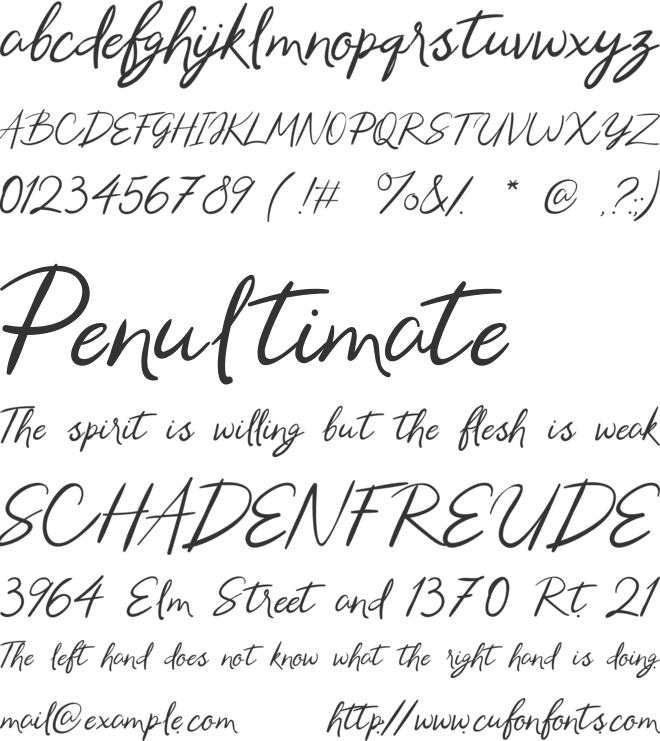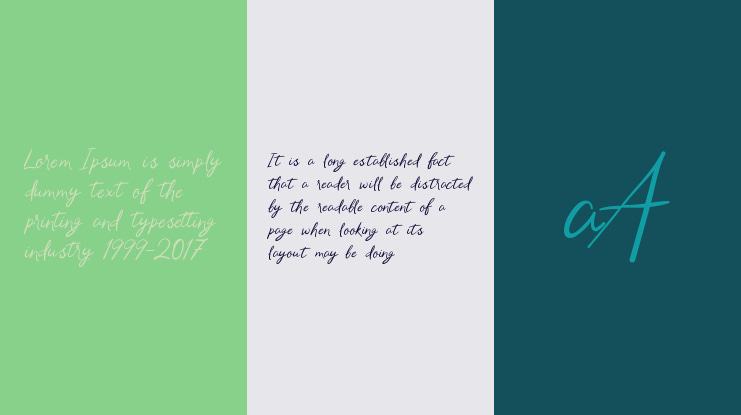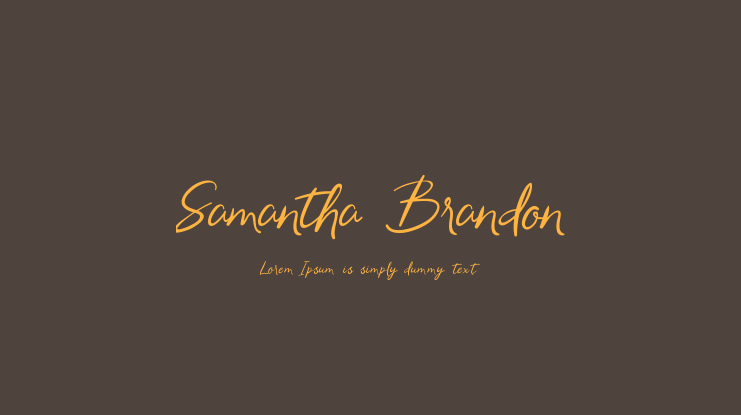
Samantha Brandon Font
Samantha Brandon is an elegant handwritten signature with a natural & stylish flow. This fonts has a lots of ligature that looks natural to the OpenType feature makes the font appear as close as possible to natural handwriting. You can use this font for Instagram, quotes and other long texts, this font is also unique for one-word text or short typing, which you can use for product brands, company logos, book covers and magazines, each type will look very distinctive. There is also a combination of numeric and punctuation which has become a common element in every font, so dont worry. You only need to apply this font in your product design area. try it
Samantha Brandon font preview